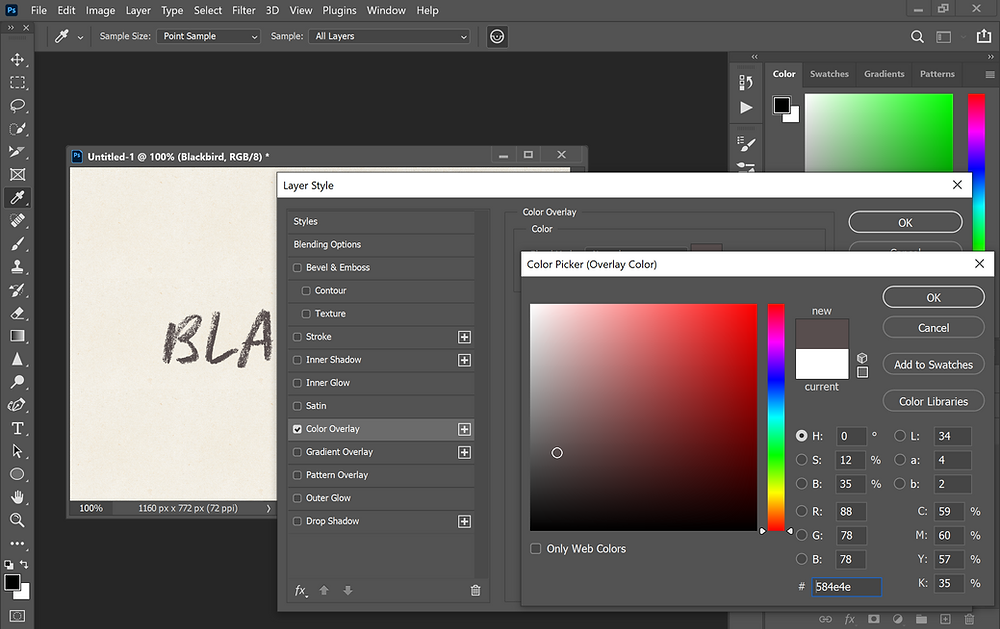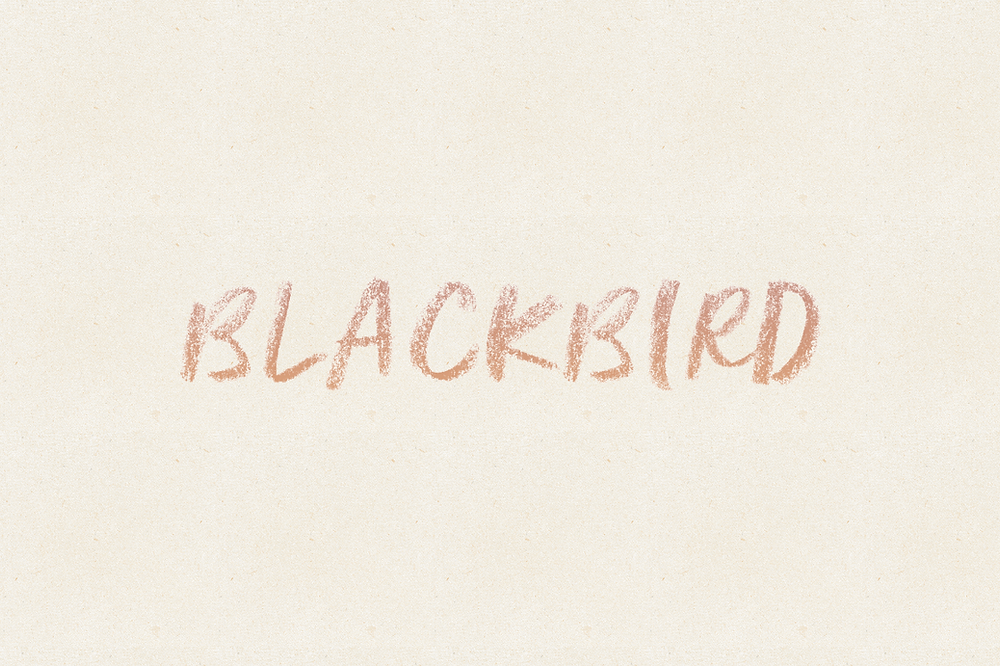
New Font, Blackbird & How To Use SVG Fonts?
I would like to introduce you to my new font, Blackbird, a script SVG font made from letters hand-drawn in crayon, for a deliciously textured look. I was inspired by quirky, cute pencil illustrations and realistic SVG fonts, like this one.
A script font with ligatures and alternates, and
Use Blackbird in designs such as postcards and notes, posters, logotypes, social media posts, branding and packaging, cover designs.
What is an SVG font and how can I use it?
SVG fonts are a format of OpenType fonts that allows the characters to be displayed in multiple colors and transparencies, instead of only outlines. As a consequence, SVG fonts can be very realistic, but also fairly large in size (in the order of megabytes, instead of kilobytes like other fonts). There are also software requirements for using SVG fonts. At the moment they can be used in versions of Photoshop CC2017 and more recent, and Illustrator CC2018 and up. In case you are not familiar with SVG fonts, here are the answers to a few common questions (please contact me if you need any further information on SVG fonts).
Please note, for Blackbird: In the original black color, Blackbird looks better against light backgrounds, and if you set the blending to "Multiply".